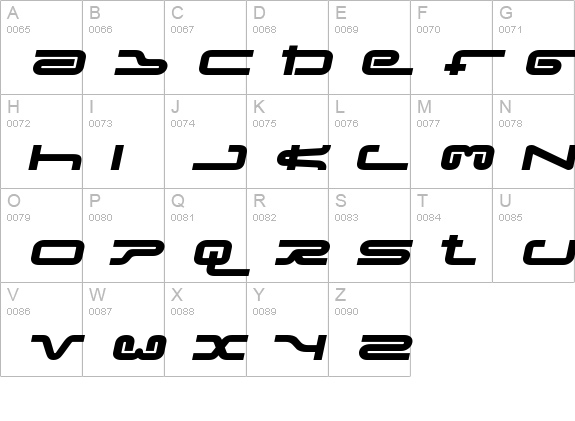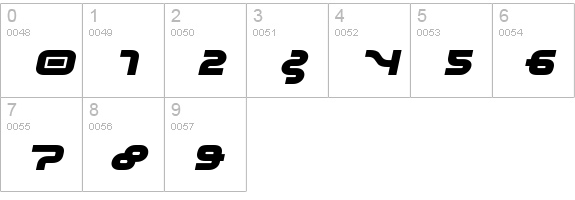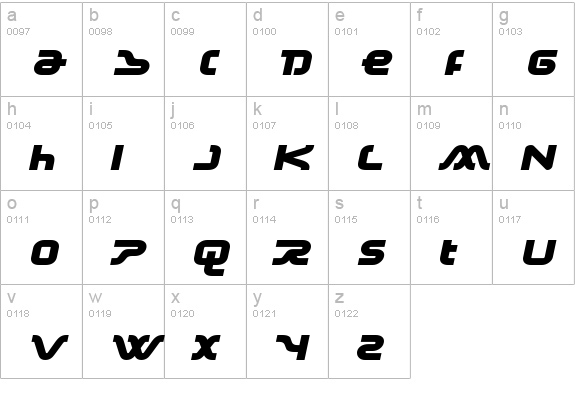
Frozdotre Font Details
Introducing Frozdotre, a stunning and versatile font that effortlessly combines modern elegance with a touch of whimsy. This captivating typeface features a unique blend of clean lines and playful curves, making it perfect for a wide range of design projects. Whether you're creating a stylish logo, eye-catching headlines, or elegant invitations, Frozdotre is sure to make a lasting impression. What sets Frozdotre apart is its versatility and readability across various design applications. With a sleek and contemporary look, this font is ideal for both digital and print projects, ensuring your message is conveyed with style and clarity. The smooth letterforms and balanced spacing make Frozdotre a joy to work with, allowing you to effortlessly bring your creative vision to life. And the best part? Frozdotre is available for free download at FontsMarket.com! That's right, you can enhance your design projects with this exquisite font without any cost. Don't miss out on the opportunity to add Frozdotre to your font collection and elevate your designs to the next level. Download Frozdotre today and let your creativity shine!